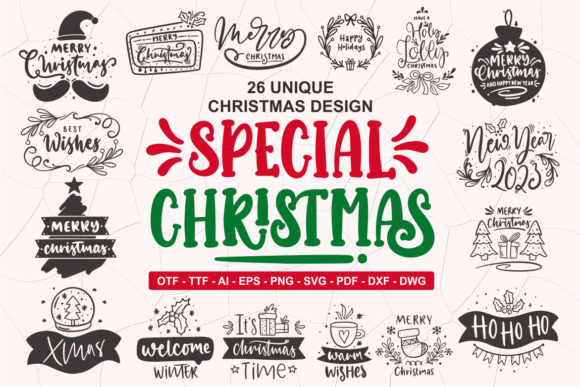
Looking to add a touch of magic and charm to your Christmas designs? Look no further than the Special Christmas Font! Created by jinanstd, this unique and attractive dingbats font is the perfect choice for all your holiday-themed creations.
With its easy accessibility and seamless application, Special Christmas Font ensures that you can effortlessly incorporate a festive and whimsical vibe into your designs. Whether you're creating Instagram posts, greeting cards, or party invitations, this font will elevate your artwork and leave a lasting impression on your audience.
Capture the spirit of Christmas with this captivating font that is specifically designed to bring joy and warmth to your designs. Its intricate details and playful characters will instantly transport your audience to a world filled with magic and wonder.
Why settle for mundane and ordinary fonts when you can infuse your creations with the essence of the holiday season? Special Christmas Font offers you a wide range of possibilities to explore, allowing your imagination to run wild and create stunning visuals that resonate with the festive cheer.
Unlock your creativity and let Special Christmas Font be your secret weapon in captivating your audience. Stand out from the crowd and make a lasting impact with its eye-catching and joyful appearance. From typography enthusiasts to design professionals, this font is a must-have addition to your collection.
Impress your followers on Instagram with captivating posts that showcase your holiday spirit. Enhance your social media presence and make your content stand out with the Best Font for Instagram Posts - Special Christmas Font. Watch as your engagement soars and your audience can't help but double-tap and share your festive creations.
Embrace the magic of Christmas and let Special Christmas Font be your guiding star. Spread joy, love, and holiday cheer through your designs with this font that guarantees a beautiful touch to every creation.